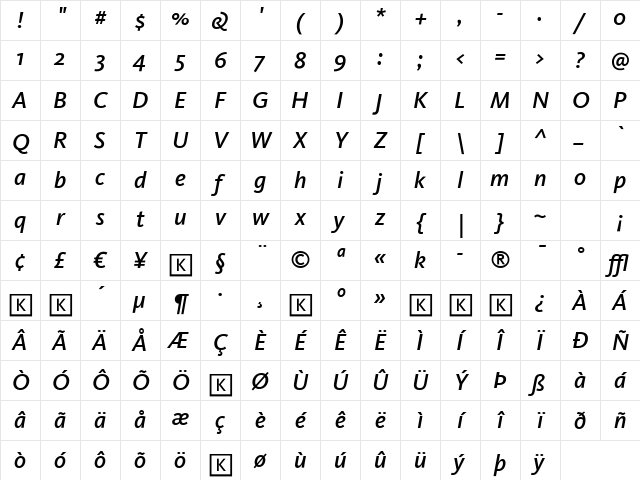
Kievit Medium Italic Free Font
Kievit Medium Italic
Foundry: copyright Mike Abbink/Method, Inc
Complete Kievit Medium Italic glyph index. Displaying only characters natively supported by Kievit Medium Italic font.
Design Context for Kievit
Kievit is a composed and adaptable typeface that performs quietly and consistently across a wide range of design contexts. The slanted form adds forward momentum and visual energy.
Pro Tip: Use Kievit for emphasis, pull quotes, and subheadings where its slanted energy can add rhythm to the layout.
Who designed the Kievit Medium Italic font?